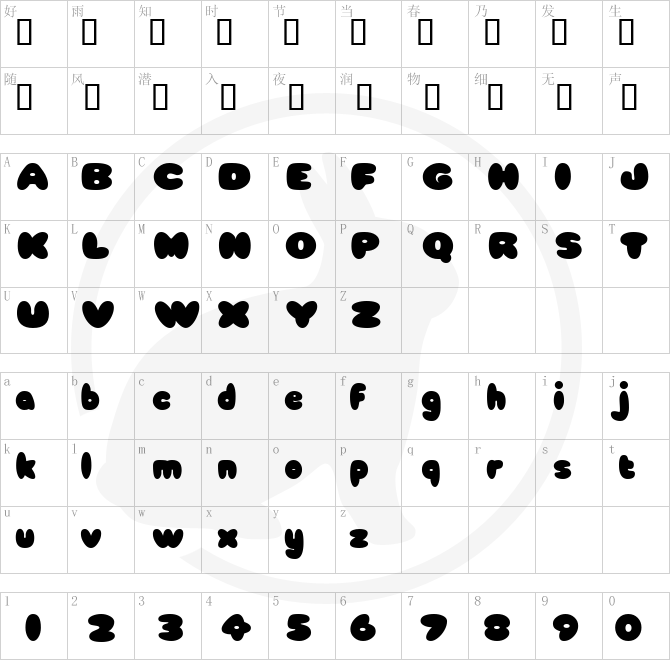
- Font Name:Babycakes
Babycakes-copy-1-.ttf is a very beautiful artistic font, Babycakes-copy-1-.ttf is widely used in the design and printing of various books and pictures,Babycakes-copy-1-.ttf has a strong visual impact,Babycakes-copy-1-.ttf is a commonly used font in newspapers, magazines and books, and is used in posters, e-commerce Poster design, store design, logo design, font design and other fields.Babycakes-copy-1-.